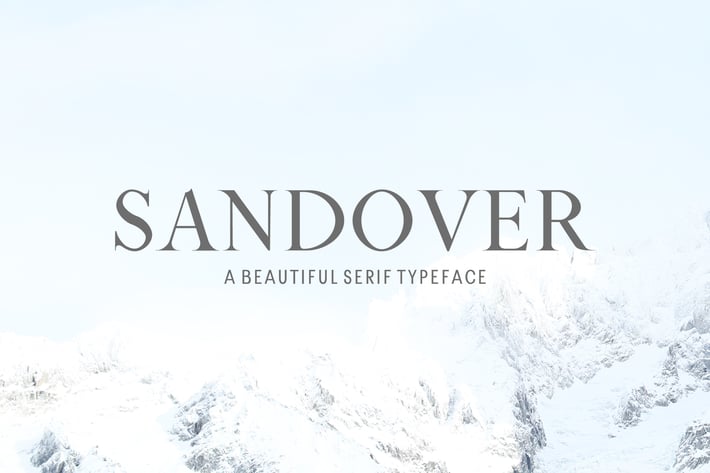
Sandover Serif Font Family
Sandover is a beautiful serif typeface. It contains 5 weights with all basic glyphs with Non-English characters. Sandover can be used for headlines, posters, branding, packaging, presentations, logo, quotes, titles, magazines headings, web layouts, advertising, invitations, packaging design, books, and nearly any creative design.
Included Features:
- Font Weight: Regular, Thin, Light, Round and Bold
Wacian Font Features:
- Uppercase Letters
- Lowercase Letters
- Non English Characters ( Latin Supplement + Latin Extended A)